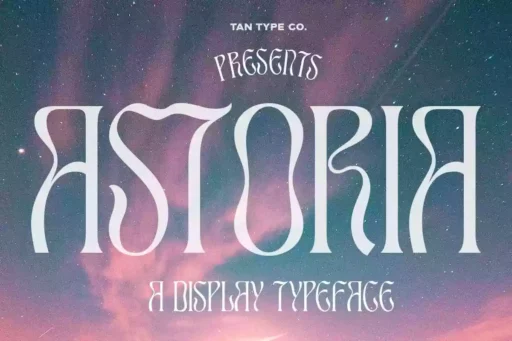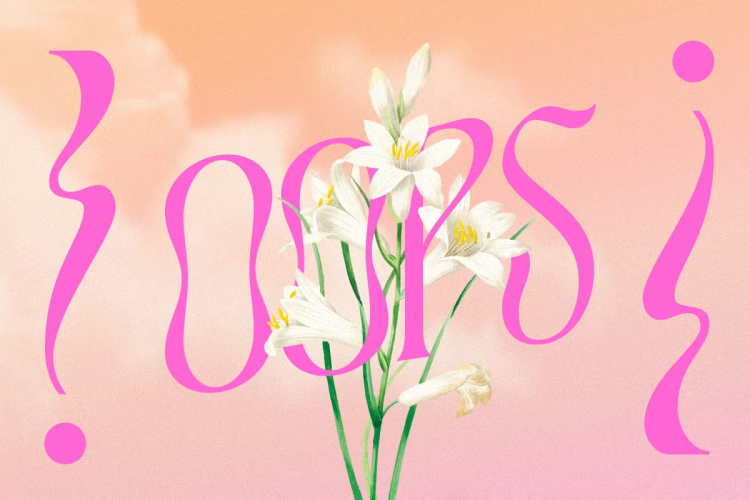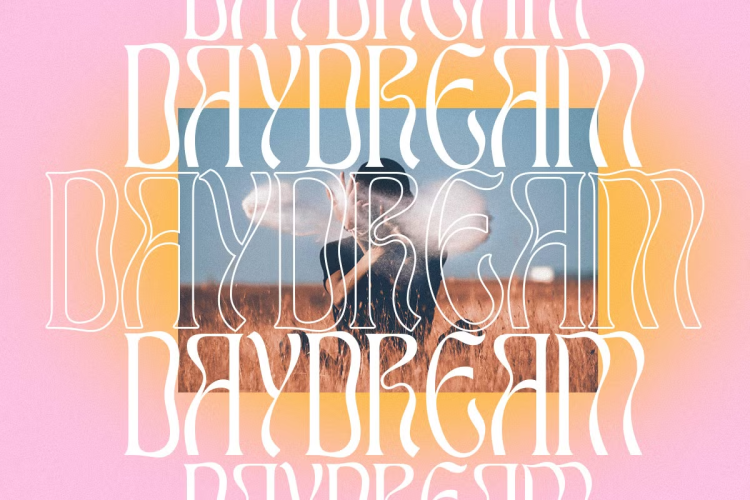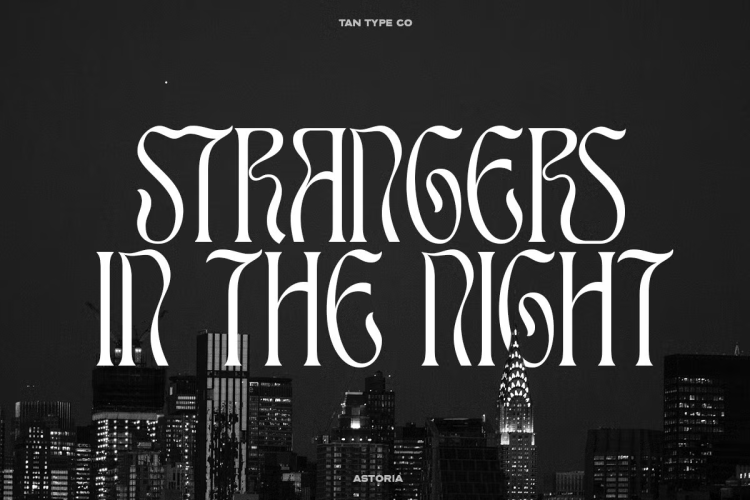
TAN ASTORIA Font
TAN ASTORIA is a display serif font by TanType, a typographic expression designed with a lively attitude and visual style that can make your design works full of energy. In essence, font’s biggest asset is in its creativity and fun appeal, therefore it will be a great asset for any designer who wants to add a sprinkling of fun and nostalgia to the design they are undertaking.
The typeface sports strongly drawn, highly stylised forms that recall the radical typography of the 1960s and 70s counter culture. TAN ASTORIA is a very wild-looking font, but it has a clear serif basis to it that gives a nod to more classical typography.
TAN ASTORIA Font is a Display Fonts font that brings a professional and versatile look to your projects. TAN ASTORIA is a display serif font by TanType, a typographic expression designed with a lively attitude and visual style that can make your design works full of energy.